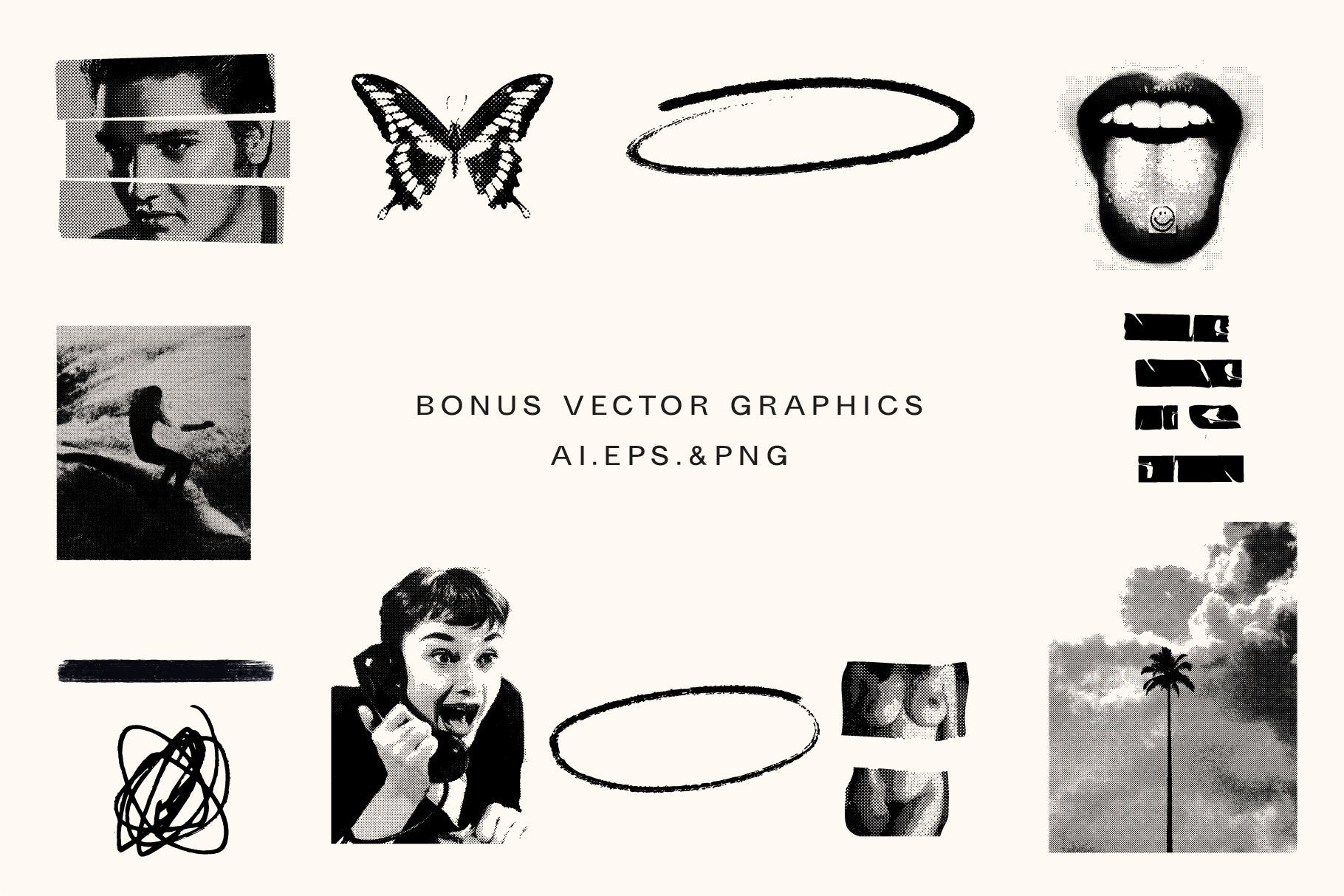
Stoned Youth
Stoned Youth Graphic Font is a one of kind typeface with built in graphics. Just type your text and add intertwined graphic letters with a single click. It's never been easier to get unique and stylish typography with bonus graphics included.
Non English glyphs included:
ą á â à ä å ã æ ć ç ę é ê è ë í î ì ï ı ł ñ ń ó ô ò ö õ ø œ ś š ß ú û ù ü ý ÿ ž ź ż.Ą Á  À Ä Å Ã Æ Ć Ç Ę É Ê È Ë Í Î Ì Ï Ł Ń Ñ Ó Ô Ò Ö Õ Ø Œ Ś Š Ú Û Ù Ü Ý Ÿ Ź Ż